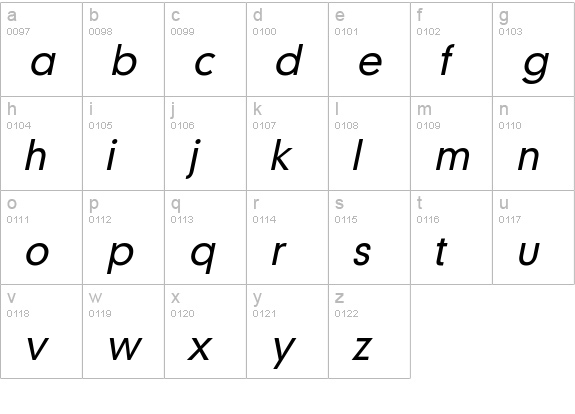
Geo 579 Italic is a distinctive, italic variant in the Geo typeface family \xE2\x80\x94 well suited to design and typography projects.
Geo 579 Italic is a stylish and modern font that brings a touch of elegance to any design project. With its sleek and contemporary look, this typeface is perfect for creating eye-catching headings, logos, and other creative designs. The italic style adds a sophisticated flair to your text, making it stand out from the crowd. What makes Geo 579 Italic even more appealing is that it is available for free download at FontsMarket.com. This means you can easily access this font and use it in your projects without any cost. Whether you're a designer looking to enhance your creations or simply someone who appreciates beautiful typography, Geo 579 Italic is a fantastic choice. Download it today and add a touch of class to your designs!